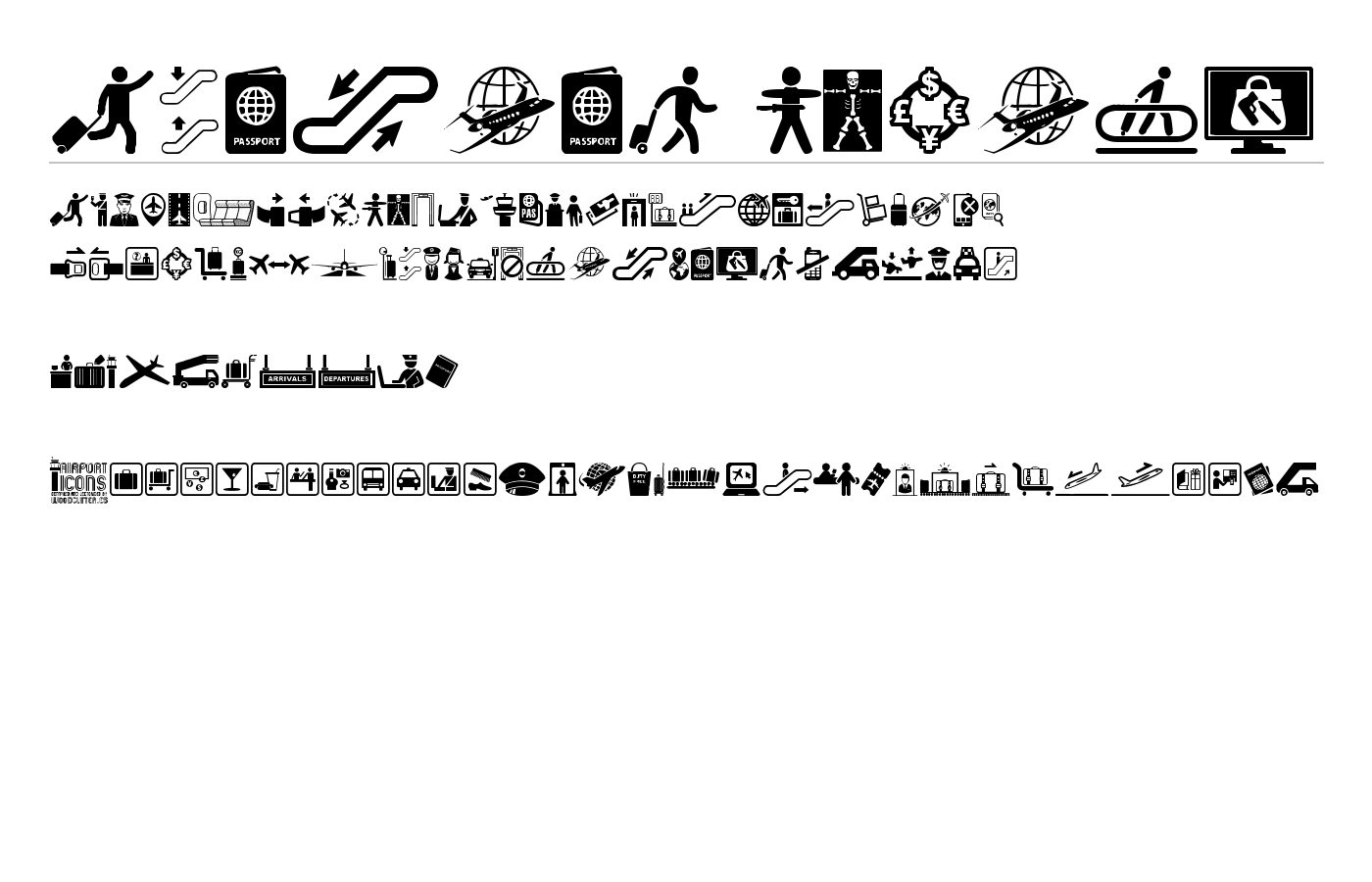
Airport Icons Font is a clear and practical symbol font designed to communicate airport-related information efficiently. Its simple, bold, and highly recognizable icon shapes make it ideal for signage, wayfinding systems, apps, and travel-related materials where quick, universal understanding is essential. This font works perfectly in environments that require visual clarity and straightforward guidance, such as airports, transit hubs, and travel websites.
Airport Icons Font
About Airport Icons Font